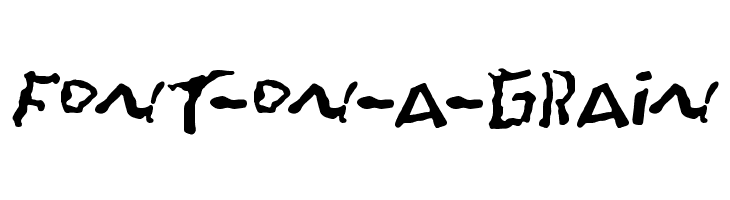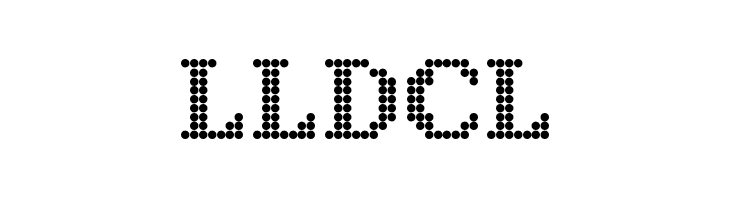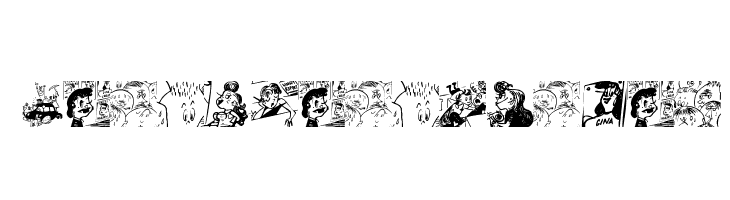
A playful, dotted font with consistent spacing and a decorative style.
A bold, 3D italic font with a plank-like texture and playful, rugged aesthetic.
A bold, distressed font with a grunge, graffiti-inspired style.
A thorn-adorned decorative font with a rugged and edgy style.
A bold, cursive font with a playful and energetic style.
A playful, decorative font with a tropical, textured pattern.
Hand-drawn, bold brush-style shapes and comic elements.
A modern, italicized font with a sleek and futuristic design.
A bold, outlined font with a modern, industrial style.